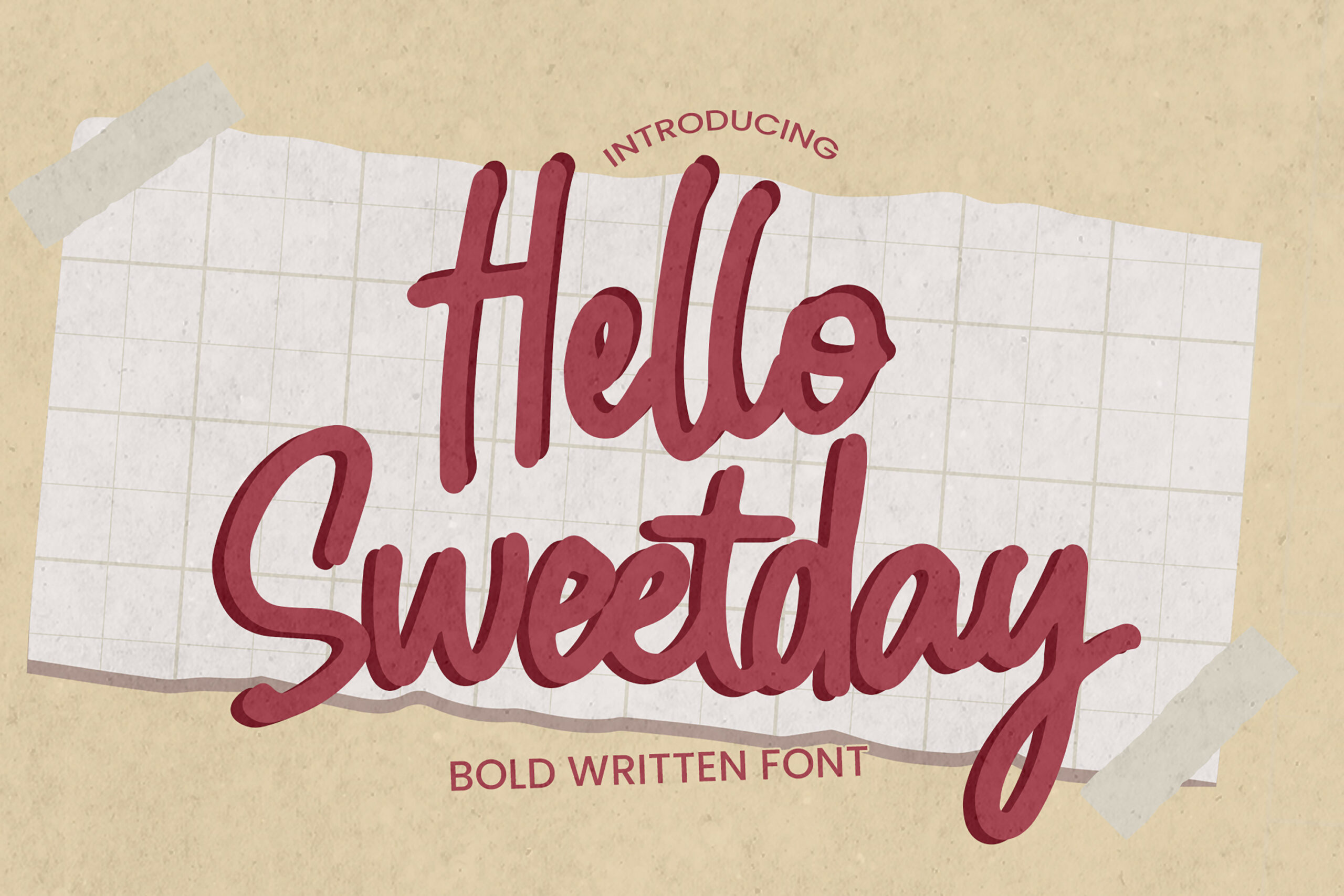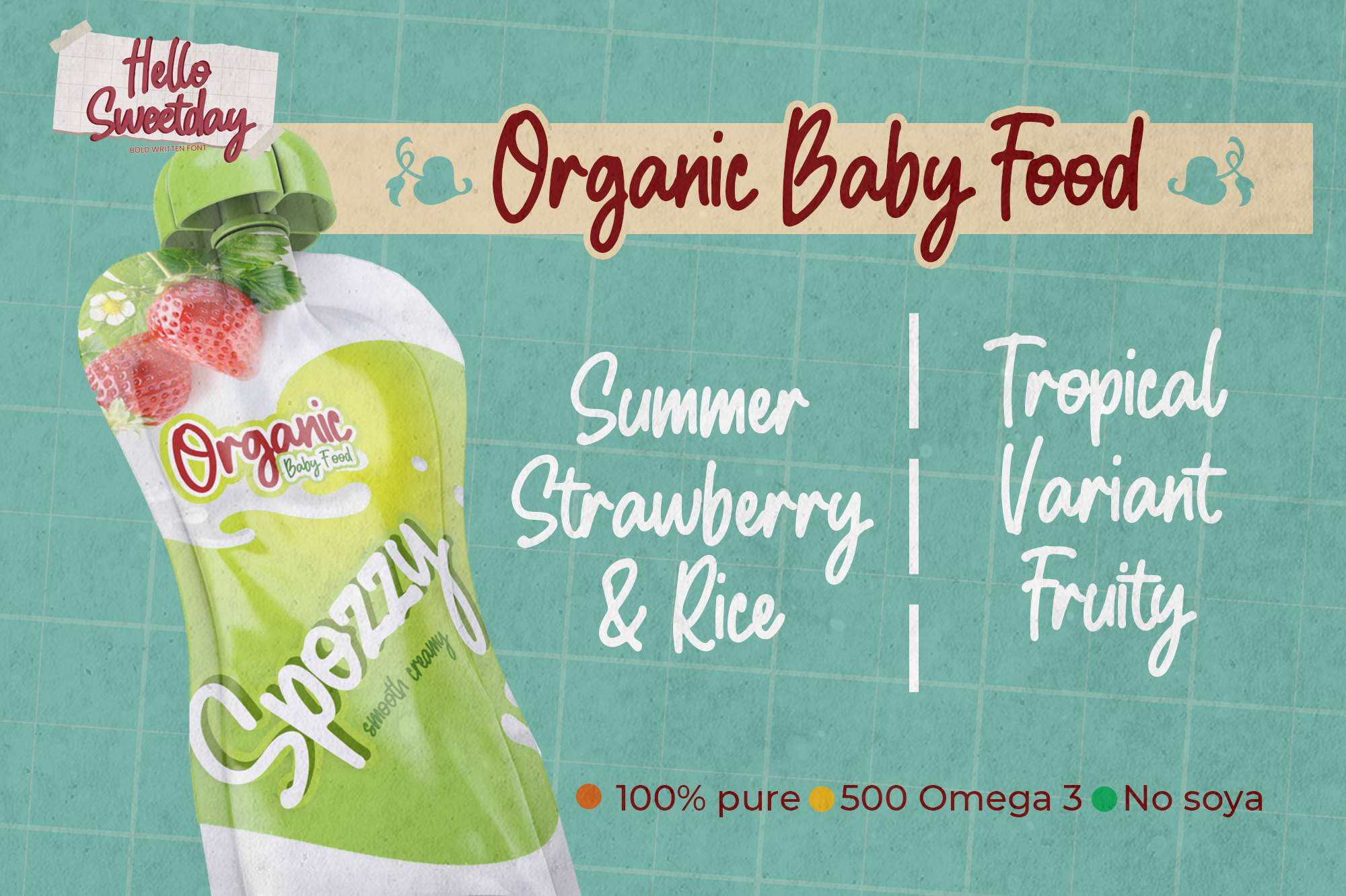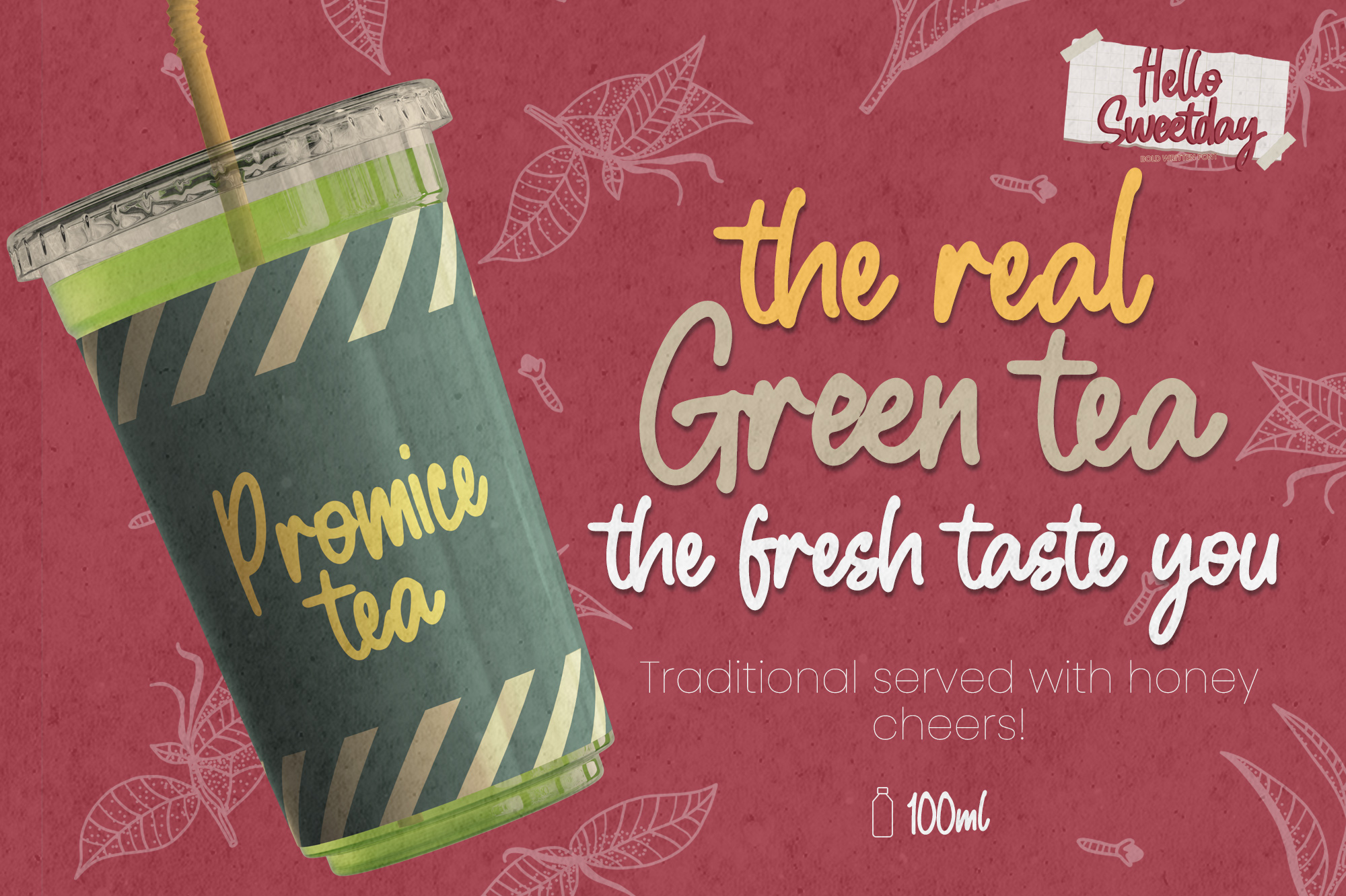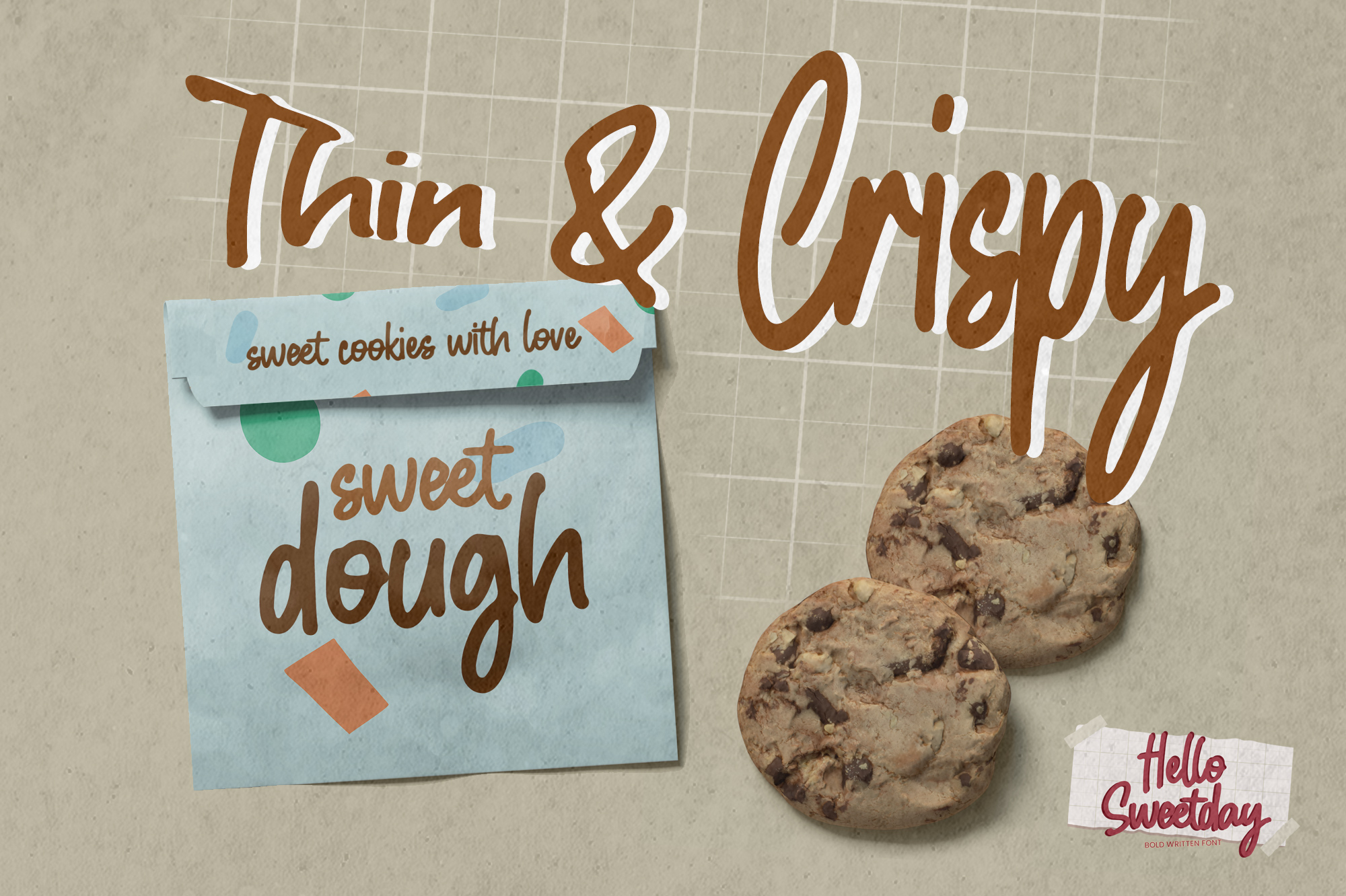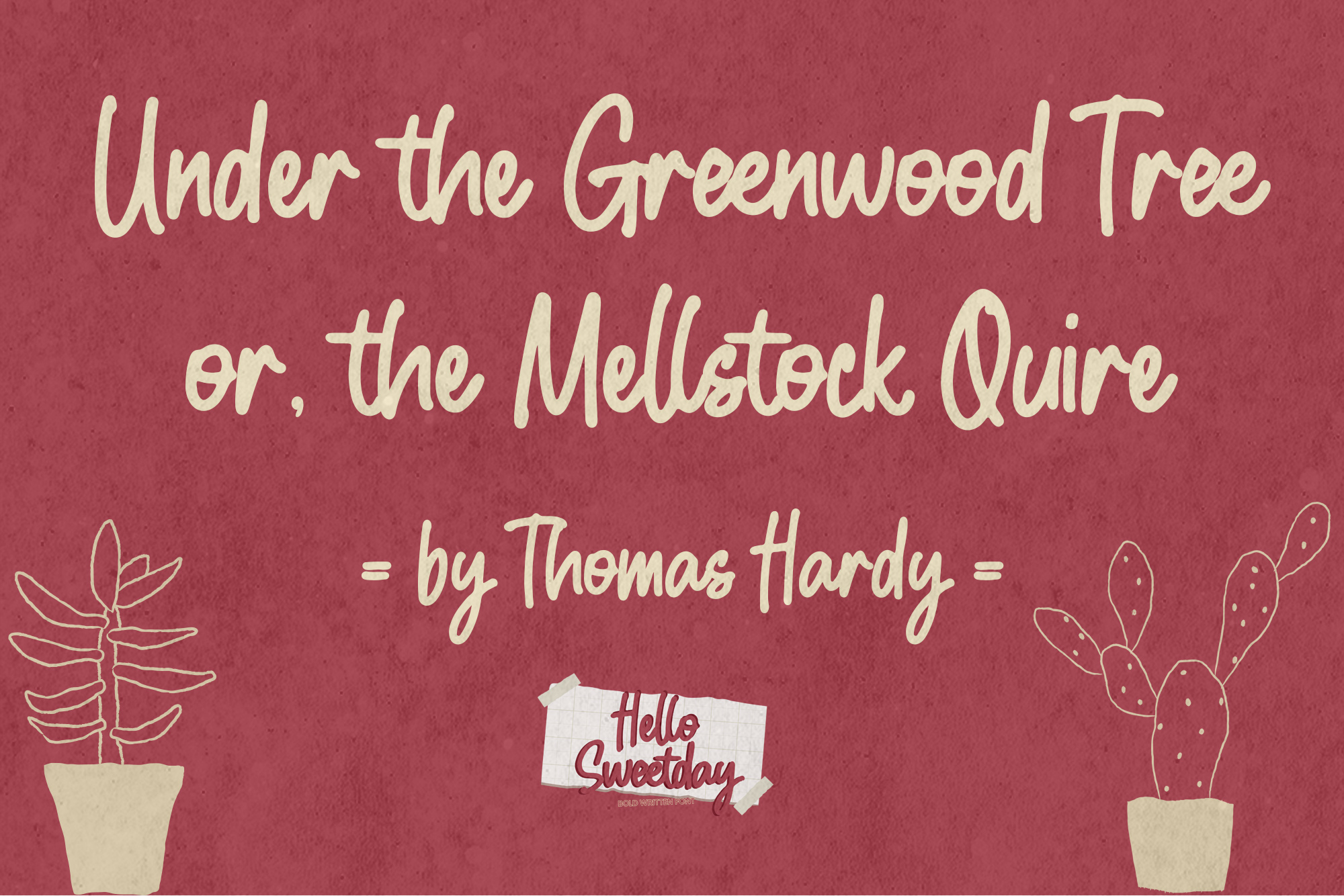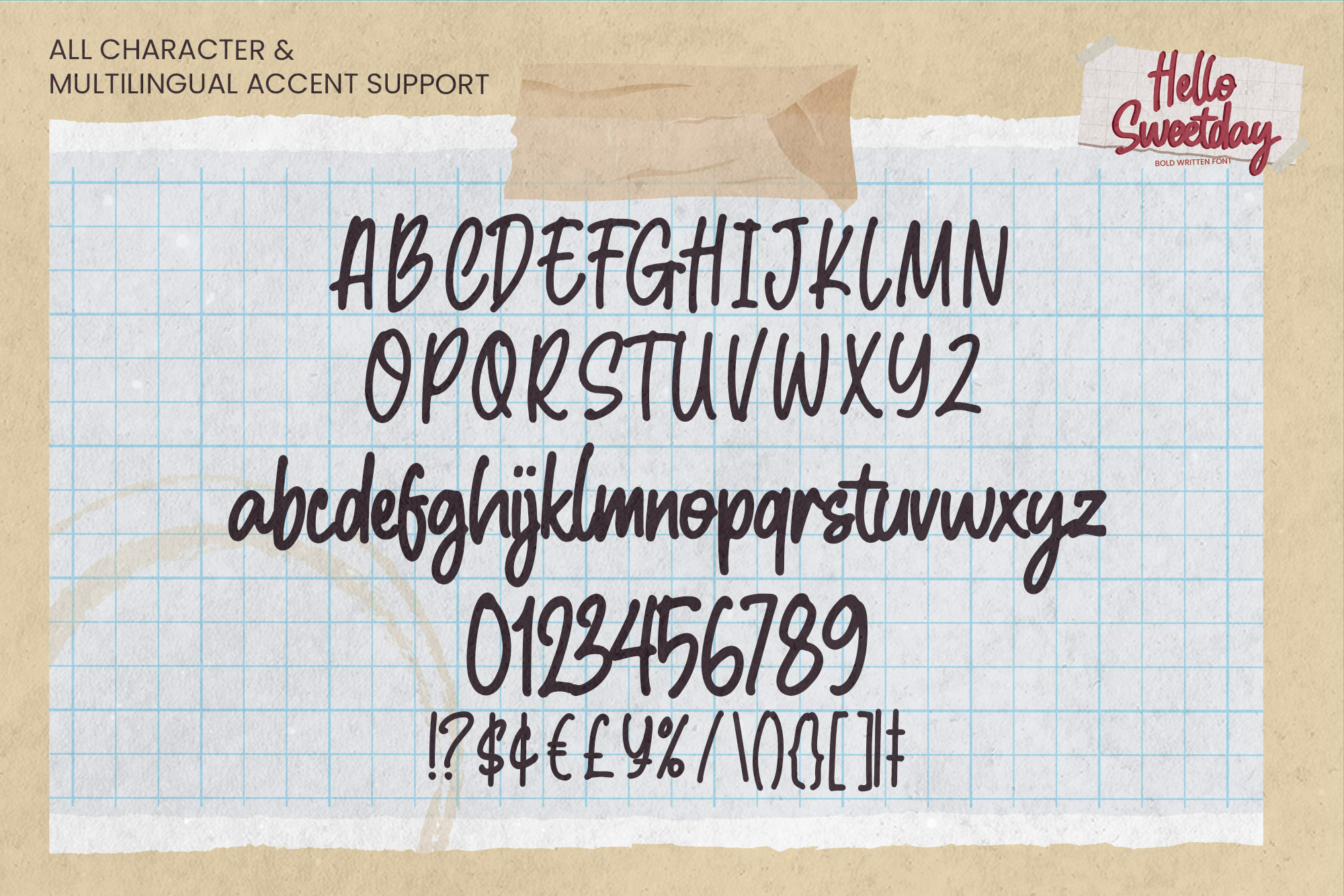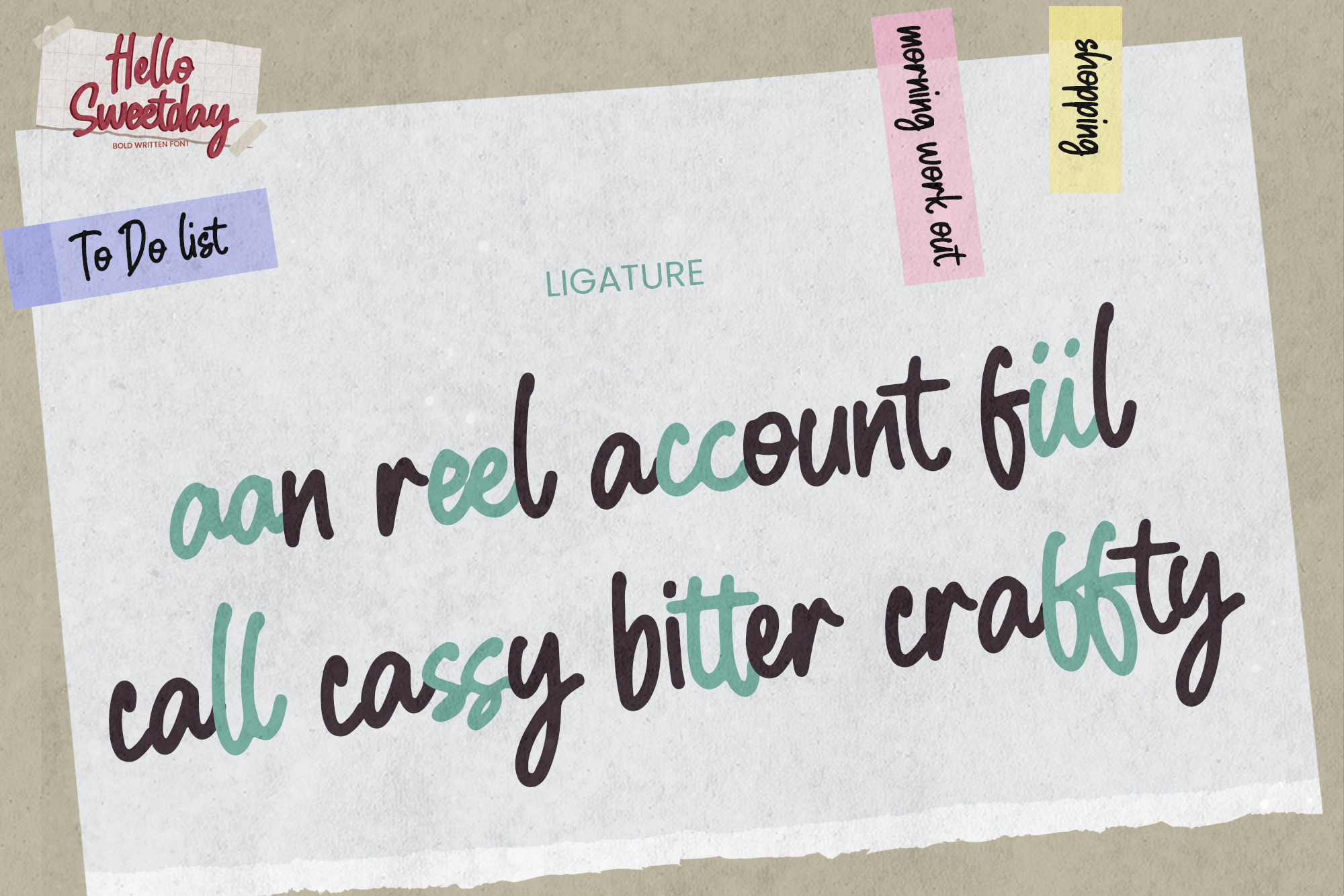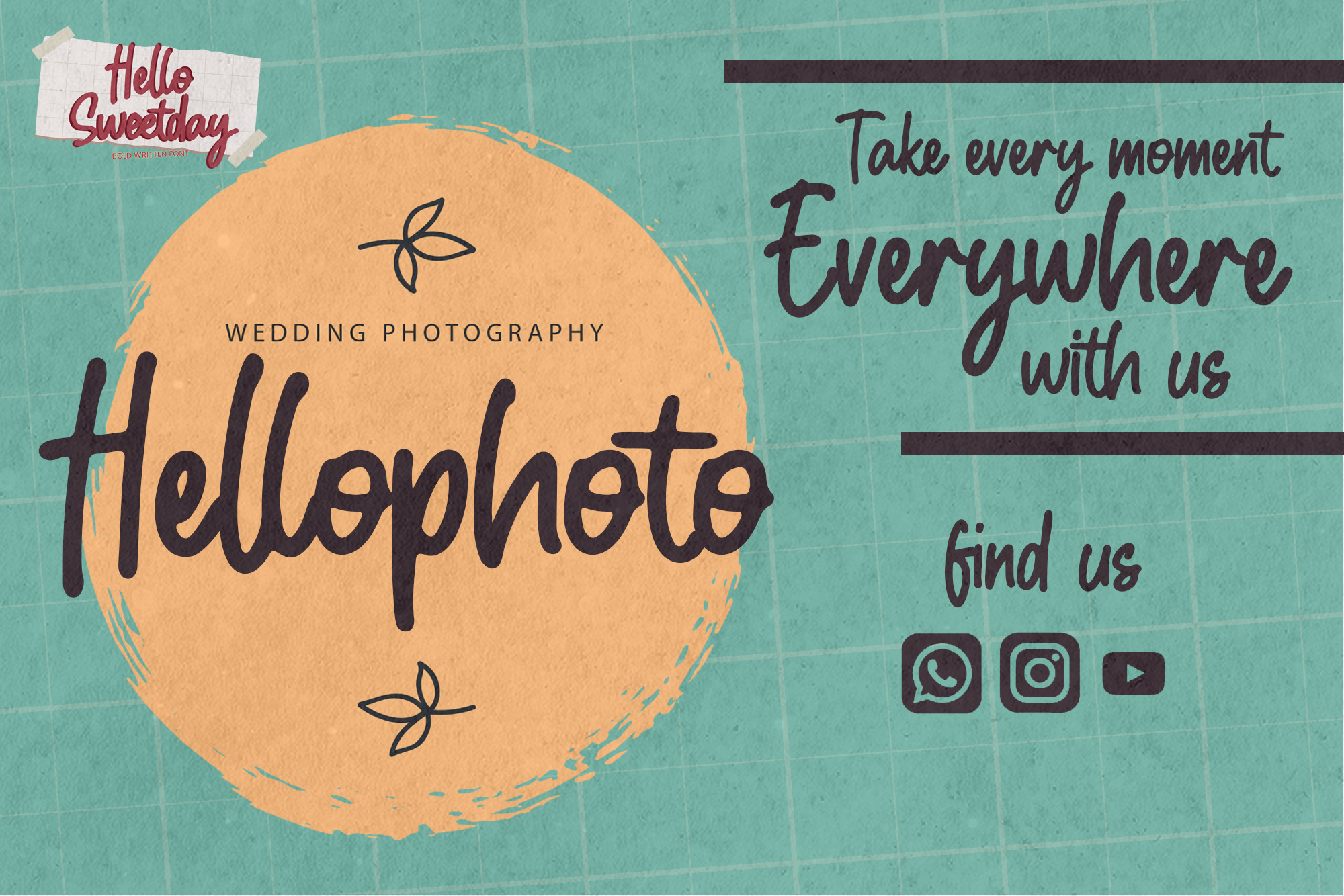
Hello Sweetday – Bold Written Font that is written casually and quickly.
That is why Hello Sweetday has a authentic, and unique characteristic more natural look. You can activate Ligatures glyphs OpenType panel.
Hello Sweetday Perfect for logo designs,This handmade font will make your design has a beautiful natural touch for each details. It is perfect for any design project as Invitation, book cover, craft or any design purposes.
photos, photography overlays, signs, window art, scrapbooking, tags and so much more!